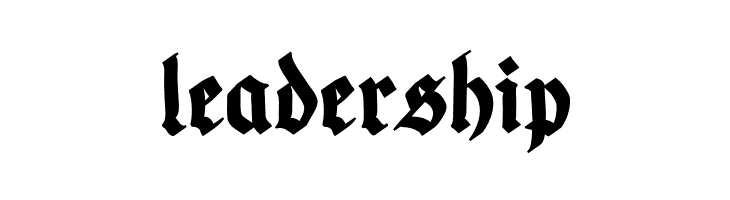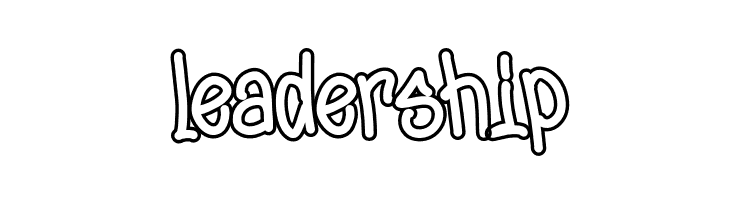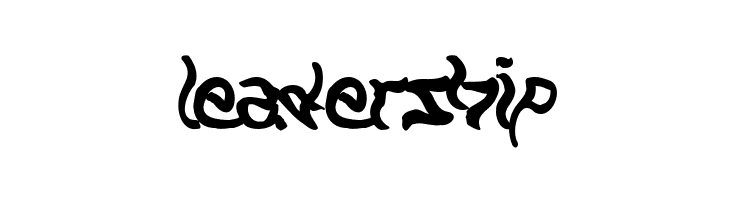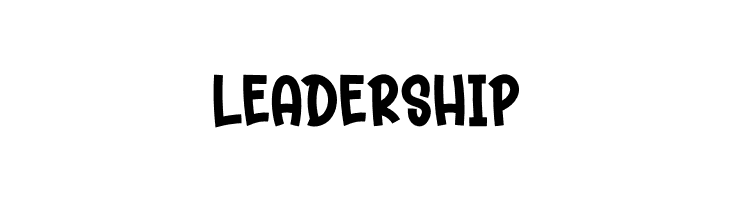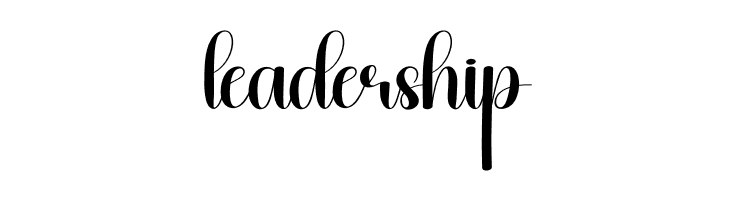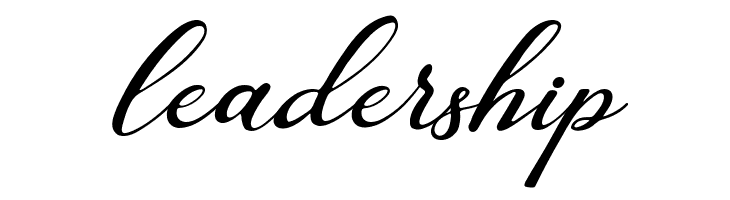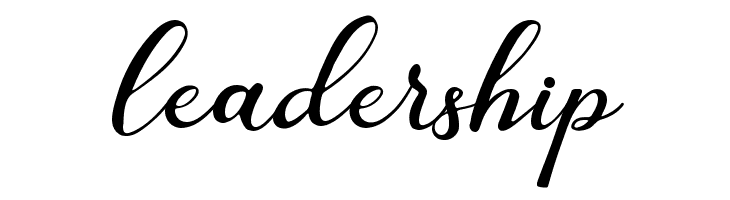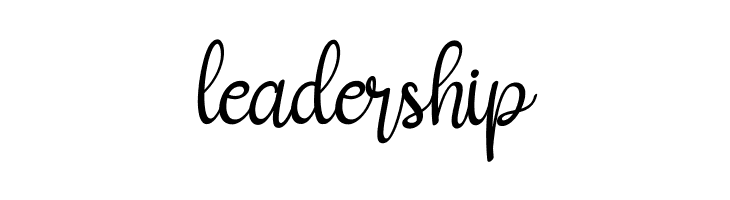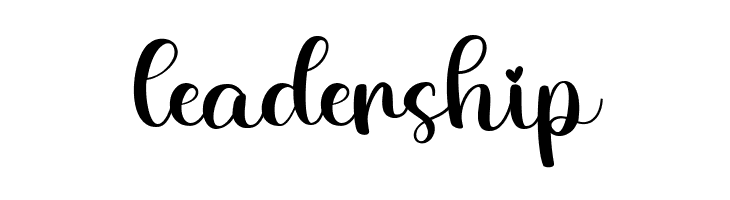
Bold, whimsical script with playful loops and swashes.
Playful handwritten sans-serif with tall, narrow letters.
Expressive graffiti-style handwritten font with bold, playful strokes.
Graffiti-style outlined font with energetic, hand-drawn shapes.
A lively, handwritten display font with playful, bold strokes.
Decorative script with calligraphic, festive brush strokes.
A modern, decorative script font with tall, flowing letterforms and playful swashes.
Whimsical handwritten script with tall, narrow letters and playful loops.
Brush-script font with a lively, handwritten look.
Decorative serif with high contrast and playful dot accents.
A bold, high-contrast blackletter style with sharp, angular forms.
Bold, whimsical display font with swirling decorative elements.
Bold, playful sans-serif with hand-drawn, whimsical style.
A decorative Christmas-themed script font with snowflake embellishments.
Ornate script font with elegant, flowing letterforms.
Expressive, bold handwritten script with brush-like strokes.
Playful, hand-drawn sans-serif with a festive, casual style.
Bold, graffiti-inspired handwritten font with energetic strokes.
A whimsical, hand-lettered script font with decorative swashes.
Bold, festive display font with jagged, playful edges.
Festive, decorative font with Christmas motifs and monogram frames.
Bold, playful display font with exaggerated curves and a whimsical style.
Playful handwritten sans-serif with tall, narrow letters.
Playful, rounded sans-serif with a hand-drawn, casual style.
A casual, handwritten monoline script with rounded forms.
Casual handwritten script with a festive, playful vibe.
A festive, decorative script font with playful, flowing strokes.
A decorative, handwritten script with festive, flowing strokes.
Playful decorative font with swirled terminals and festive flair.
Bold, hand-drawn brush font with a festive, playful vibe.
Whimsical, handwritten script with tall, airy letterforms.
A bold, festive display font with integrated leaf and branch decorations.
Bold, hand-drawn display font with a playful, textured style.
A playful, tall, and rounded sans-serif with a whimsical, festive feel.
Playful, rounded sans-serif with decorative curves and a friendly vibe.